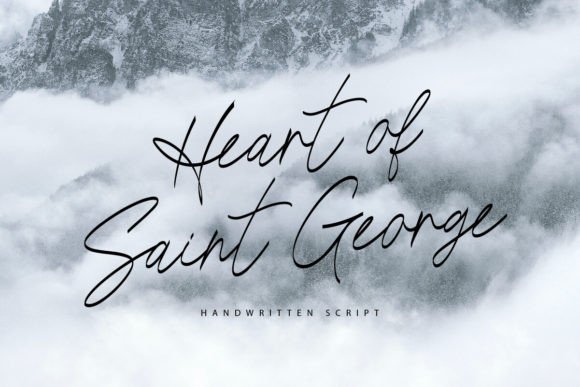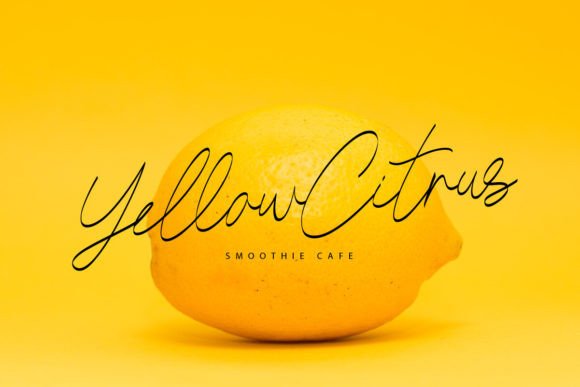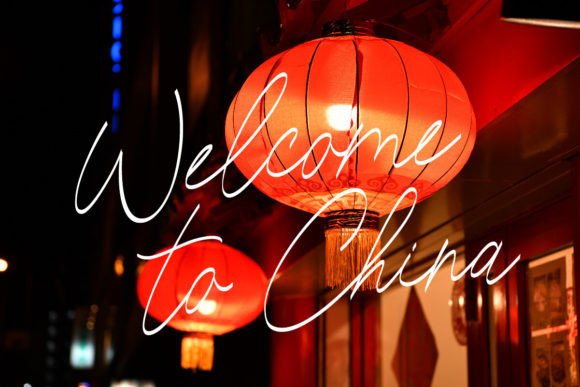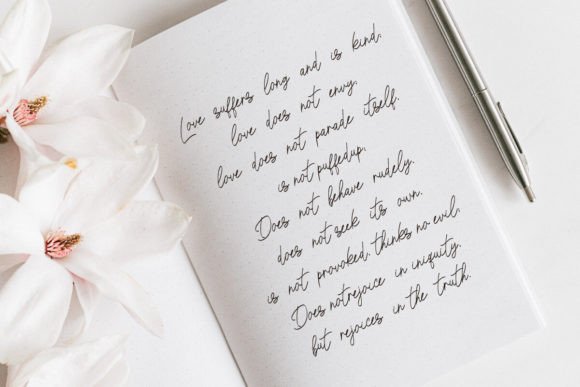
Heart of Saint George Font
About the Heart of Saint George Font
Meet Heart of Saint George Font, a stunning font that brings a touch of elegance and professionalism to any design. Heart of Saint George is elegant handwritten calligraphic font. It comes with uppercase and lowercase characters, a set of punctuation marks, numbers, Cyrillic characters, ligatures and multilingual support.
Ideal for logos, quotes, posters, branding projects, product packaging, t-shirt, book cover, greeting cards and applicable for any graphic design.
Heart of Saint George’s elegant calligraphic style excels in headlines, short-form text, and branding applications where a touch of sophistication is desired. It works particularly well for logos, invitations, and packaging designs requiring a handcrafted feel. However, its intricate details make it less suitable for body text or UI elements, where readability at smaller sizes is crucial. Avoid using it for lengthy paragraphs or complex layouts.
Its inherent elegance pairs well with clean sans-serif fonts like Montserrat or Open Sans for a balanced contrast. For a more traditional feel, a serif typeface such as Garamond or Lora could create a harmonious combination. Consider pairing it with a simple geometric sans-serif for a modern, yet sophisticated aesthetic.
The font projects a refined and romantic personality, best suited for brands focused on luxury, artistry, or personal expression. Its delicate yet distinct forms evoke a sense of timeless quality.